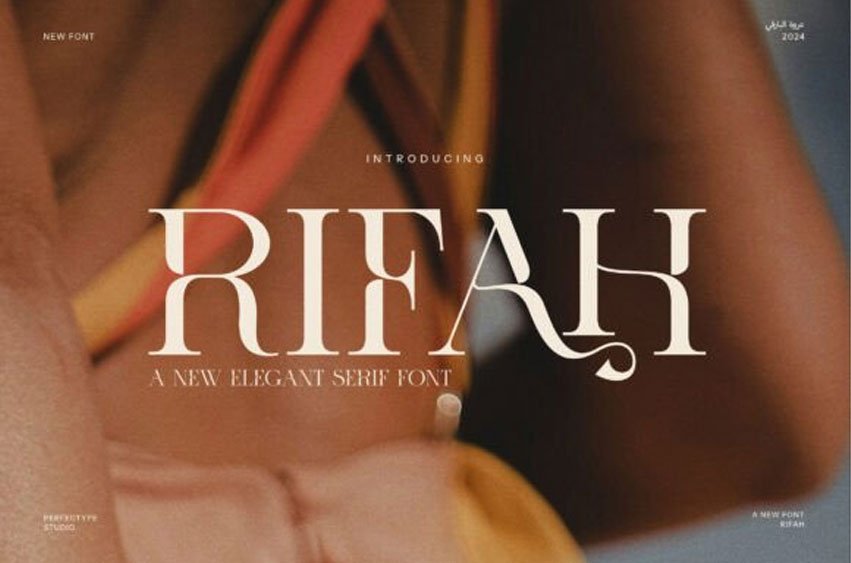
Rifah Font is a striking and contemporary serif typeface that blends elegance with individuality. Designed for those who seek a distinct and refined look, Rifah is perfect for a wide range of creative projects. Its timeless serif structure is coupled with modern, clean lines, creating a harmonious balance between tradition and innovation.
This font stands out with its unique character details and sophisticated charm, making it ideal for high-end branding, luxury logos, and editorial designs.